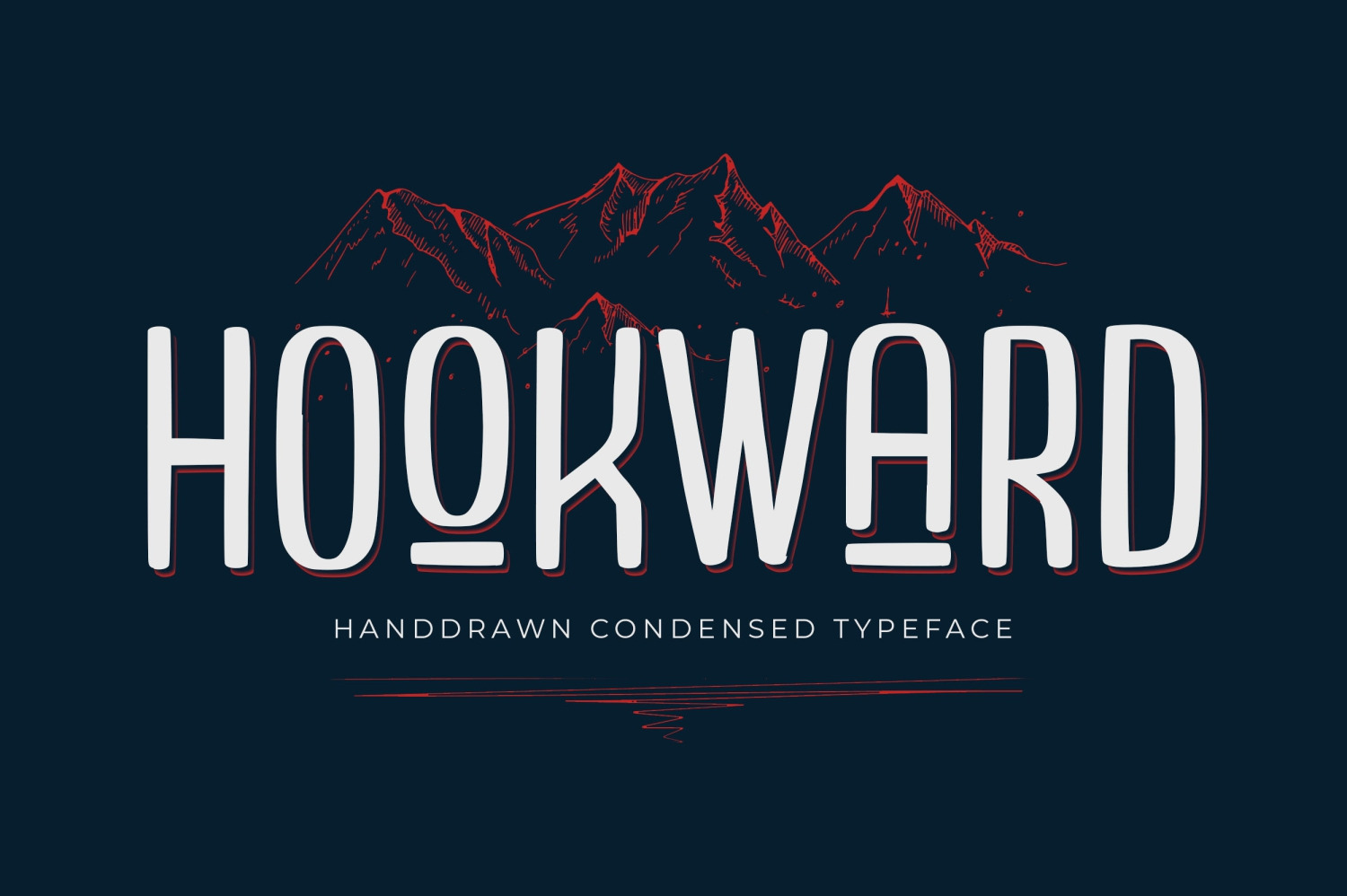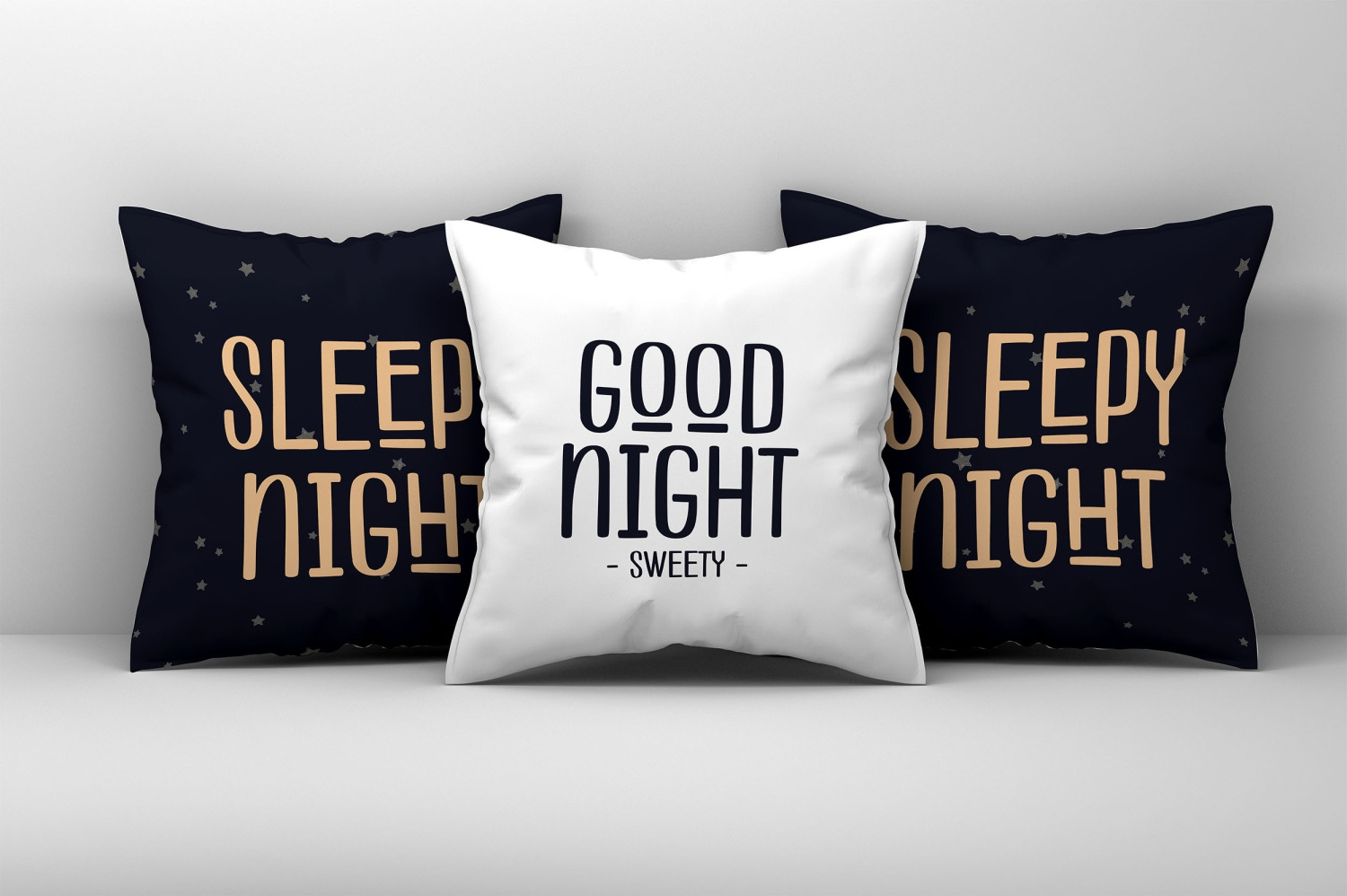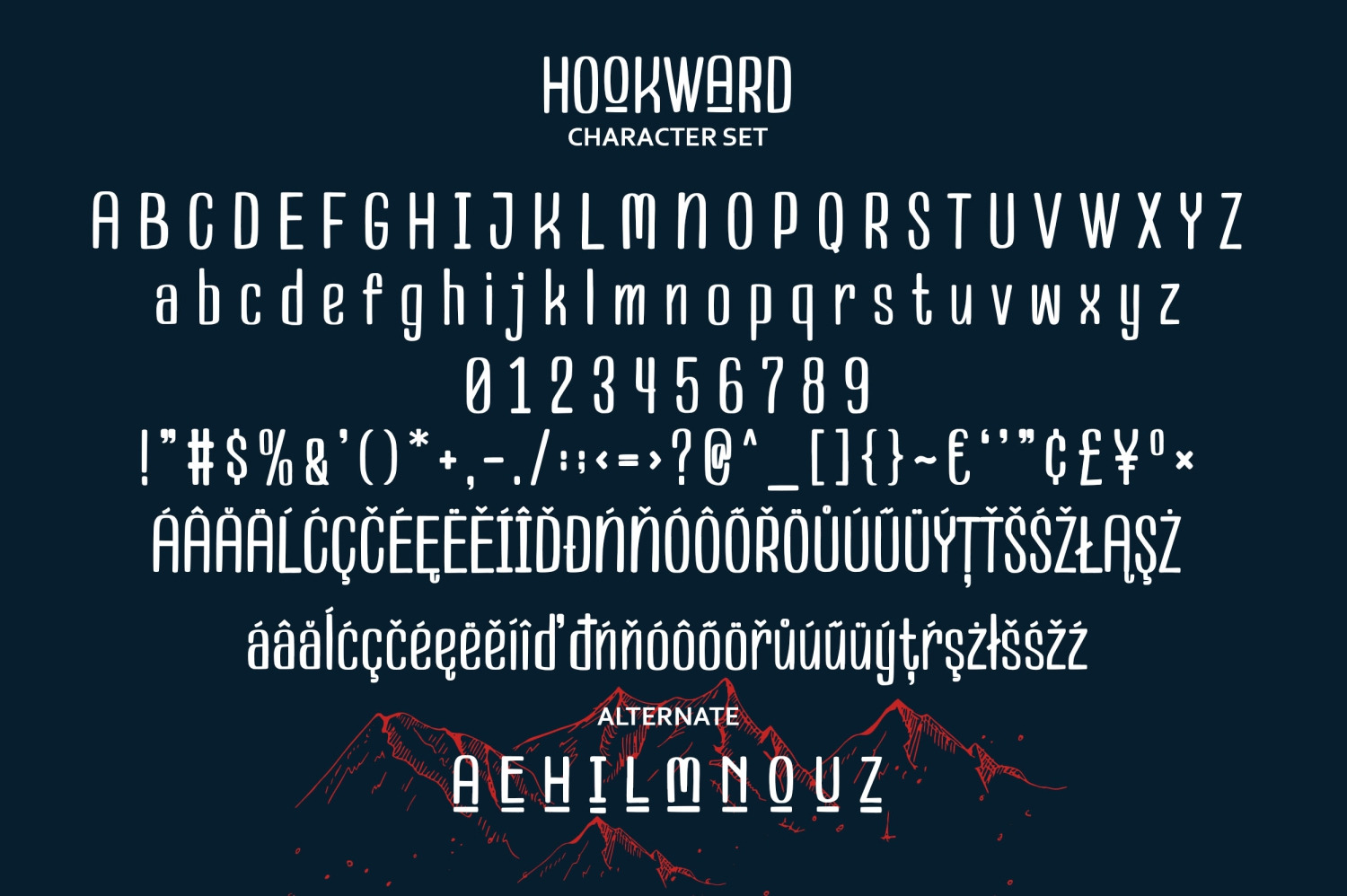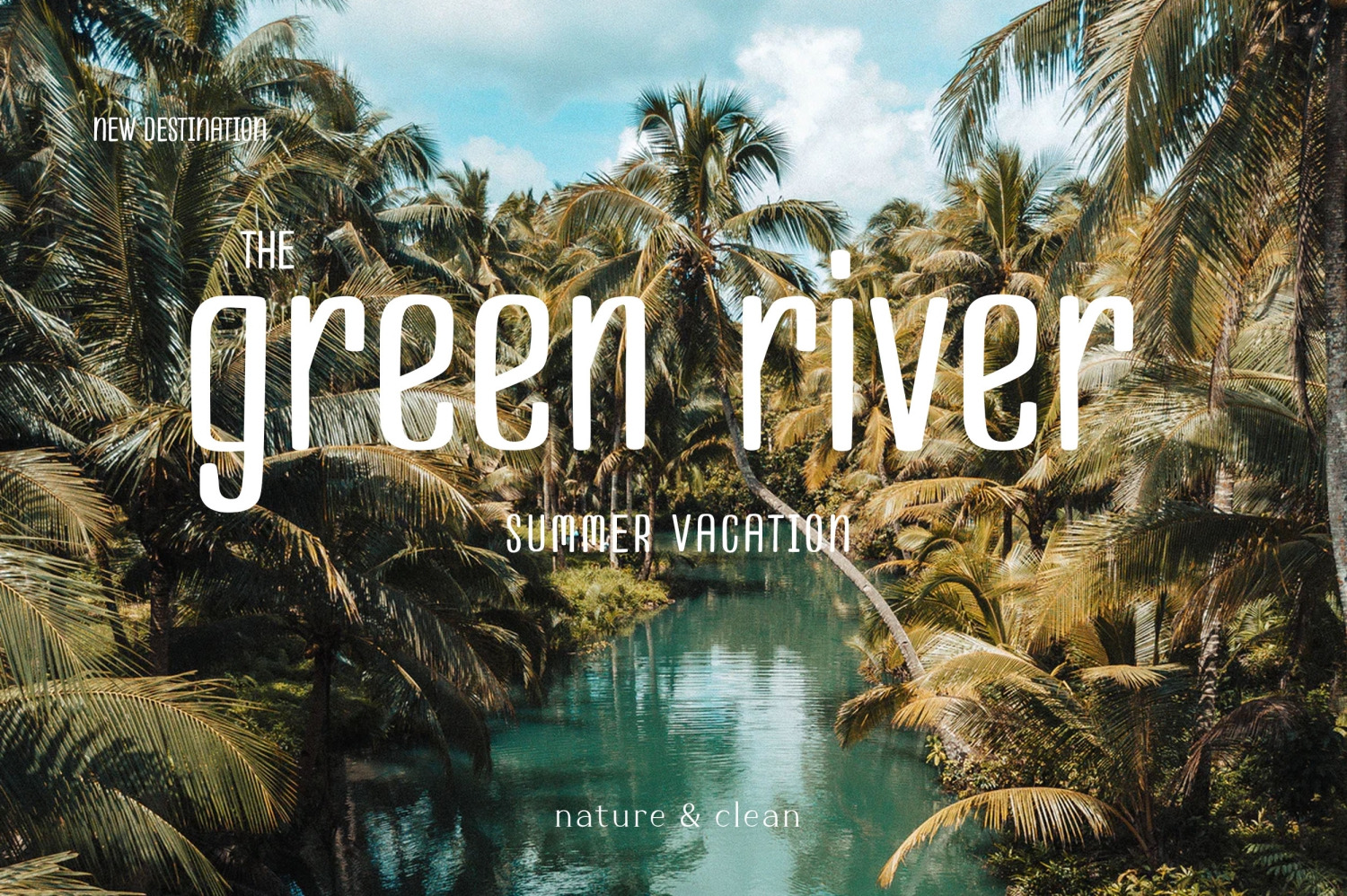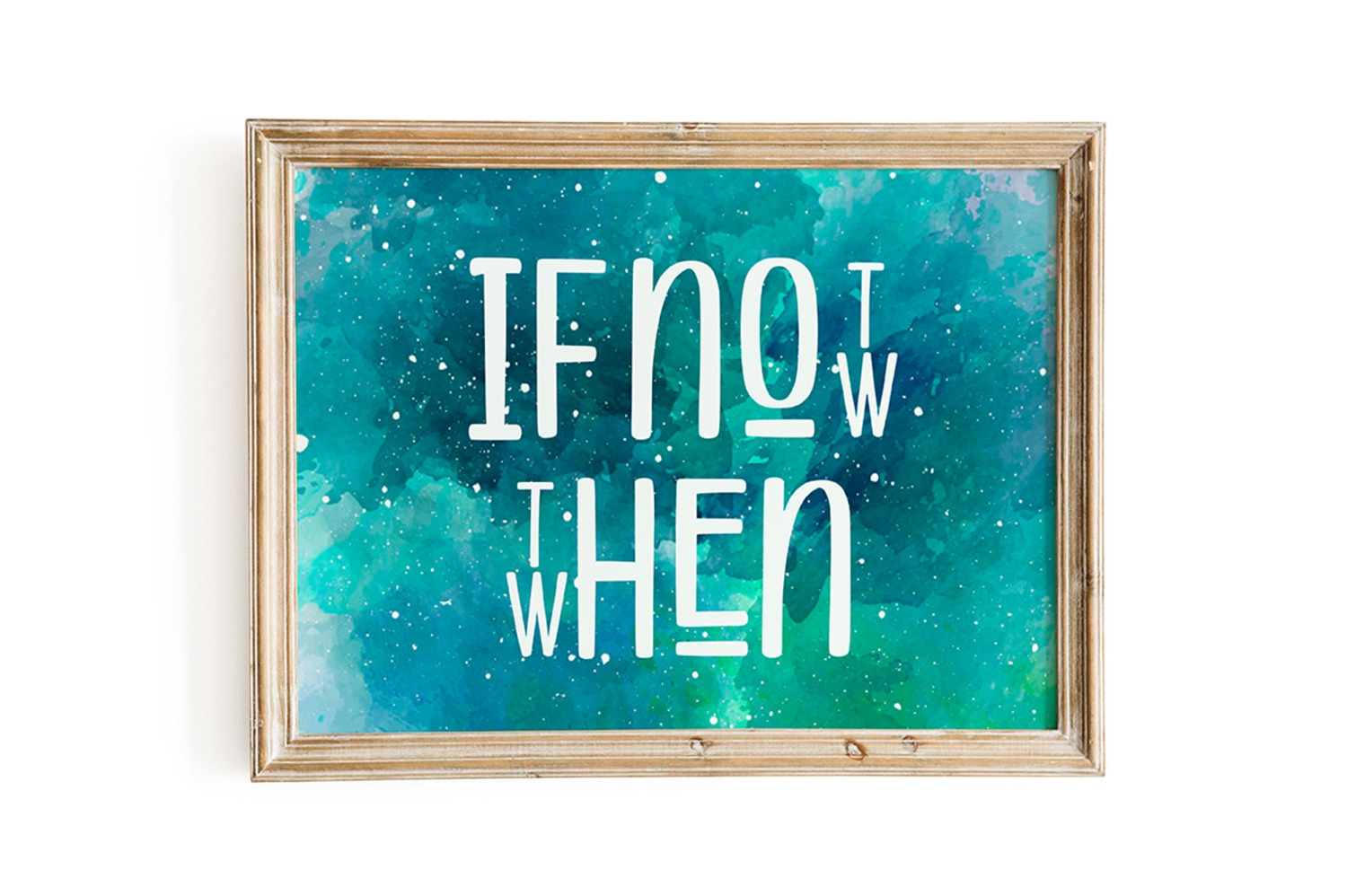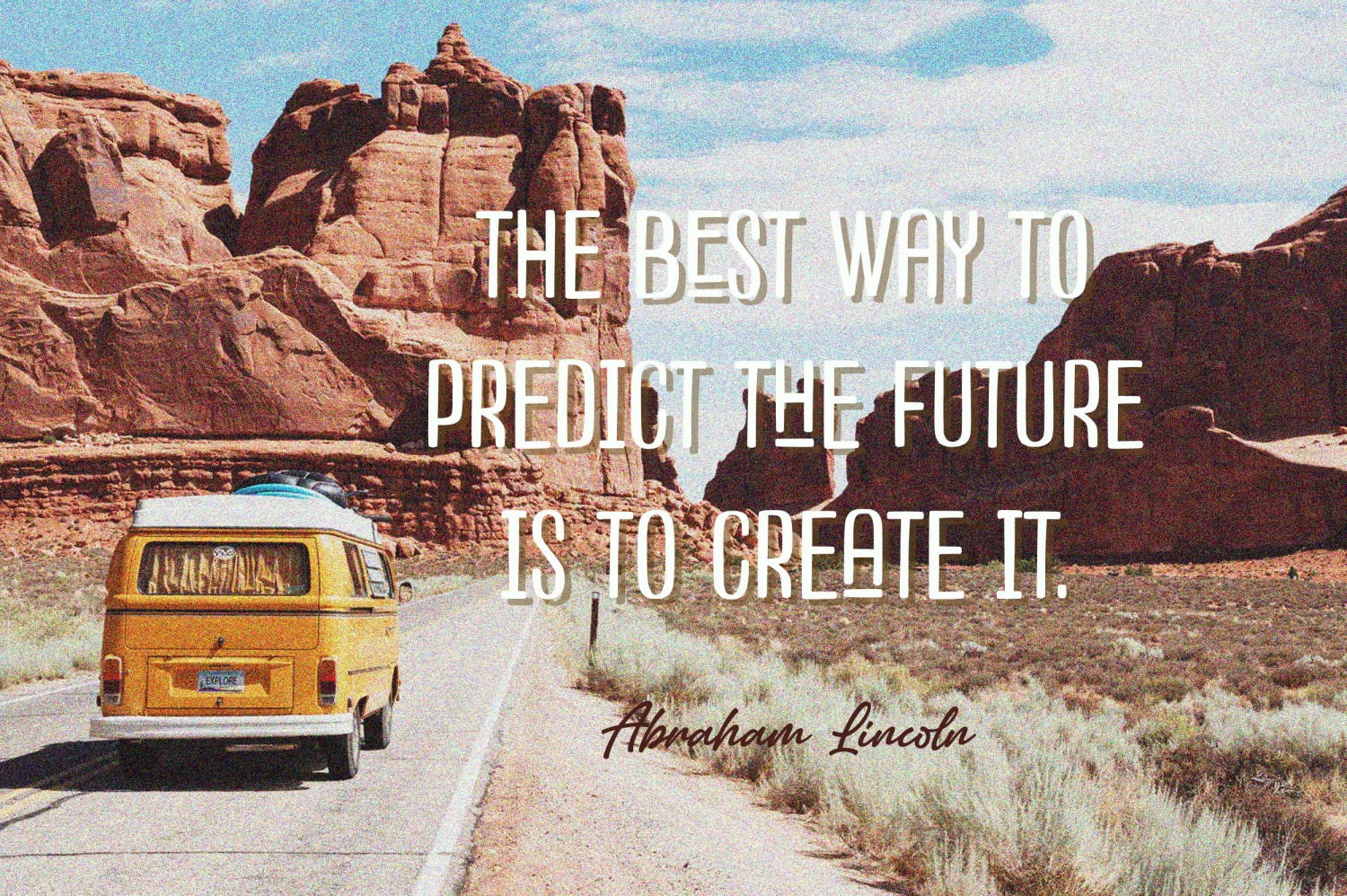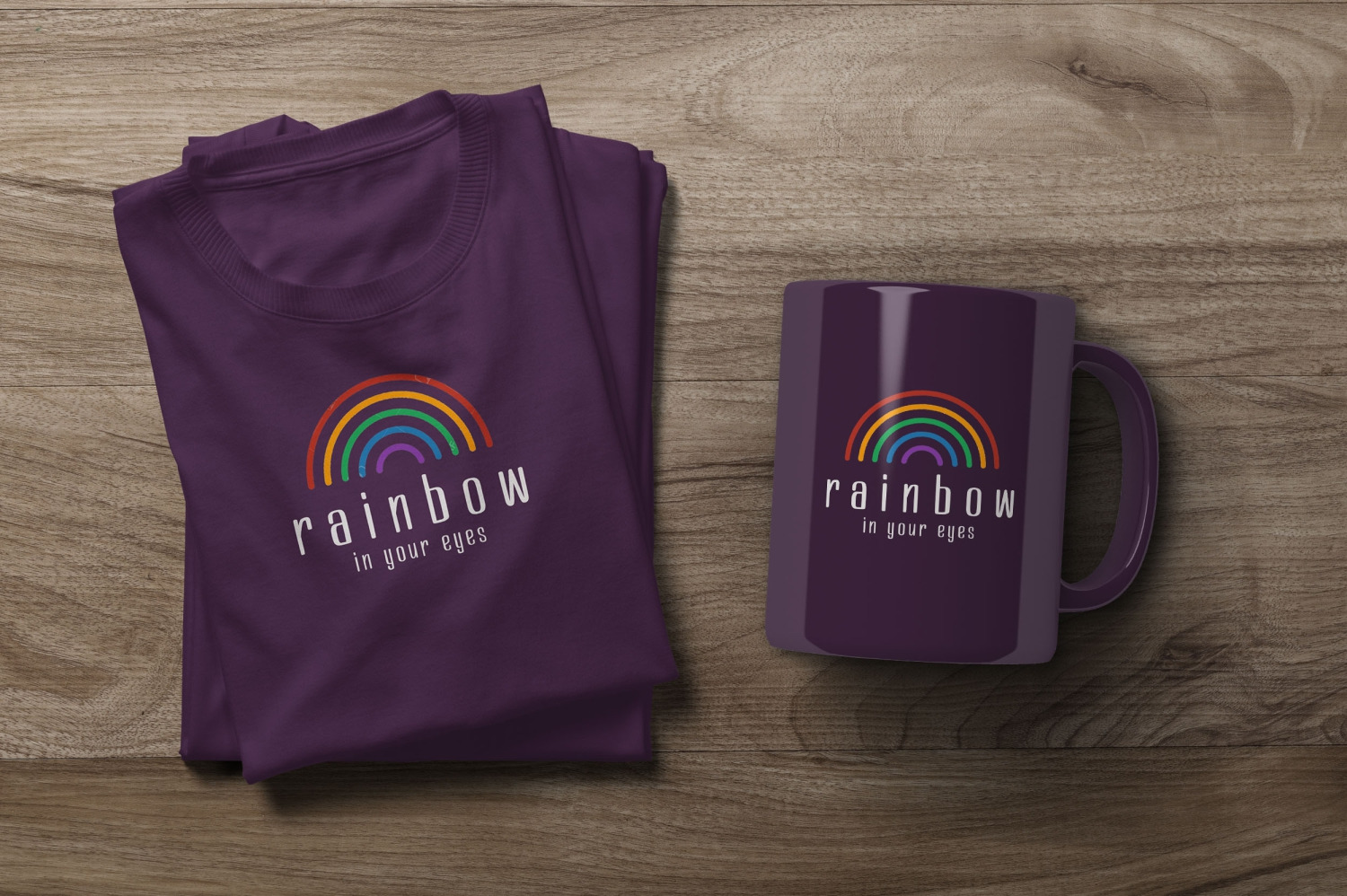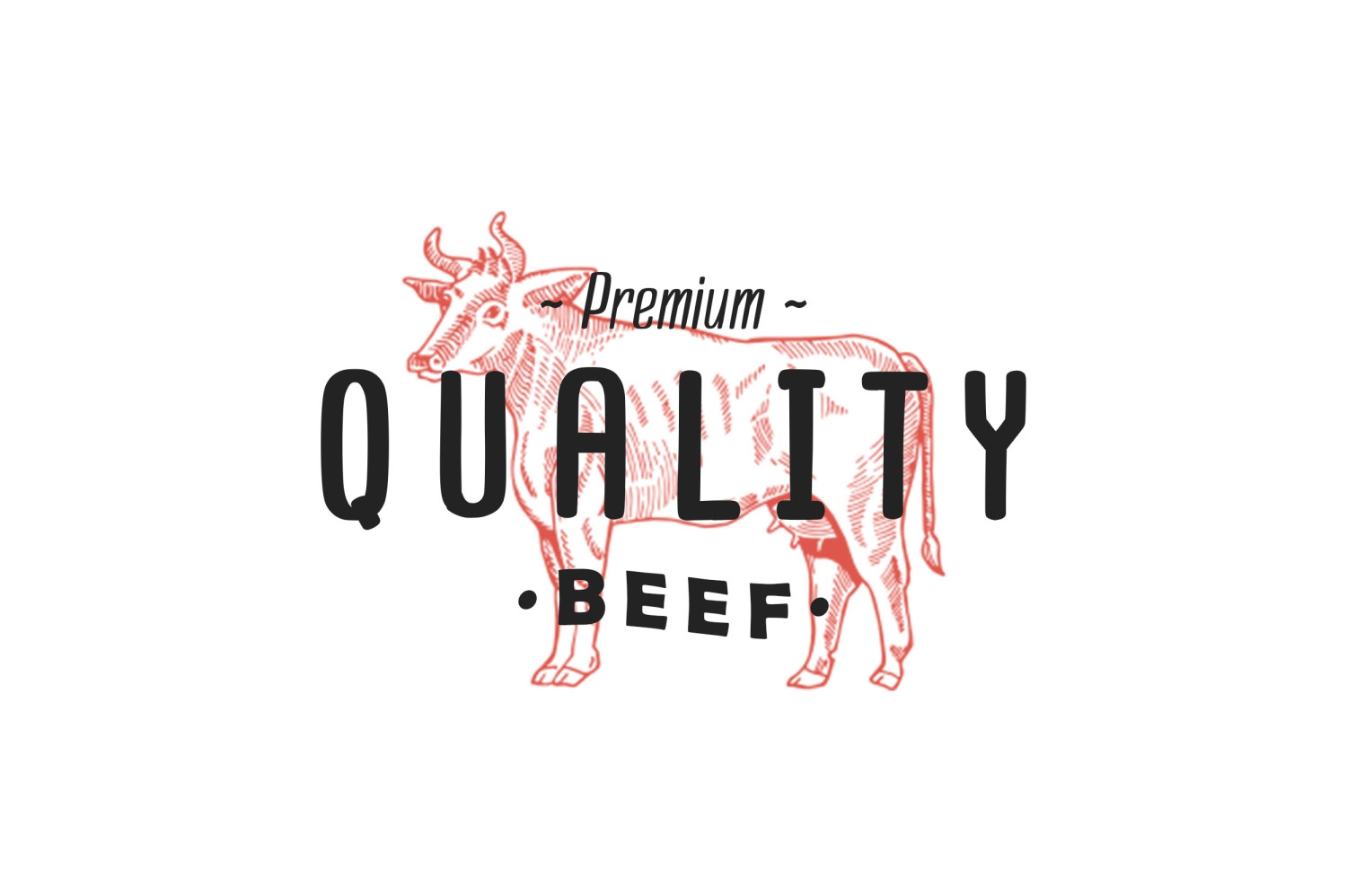
Hookward Font
Hookward Condensed
Hookward is a very cool font for a design with modern display headline: magazine, poster, branding, labels, music, and minimalism styles. With a strong display and clean nodes make a text in a design become more character and great. Inspired by the current trend of sports texts with a very modern and cool headline style.
Hookward Features:
- Multi-Language Support with accent (support for 26 languages): Afrikaans Albanian Catalan Croatian Czech Danish Dutch English Estonian Finnish French German Hungarian Icelandic Italian Lithuanian Maltese Norwegian Polish Portuguese Slovak Slovenian Spanish Swedish Turkish Zulu
- Numeral and Punctuations